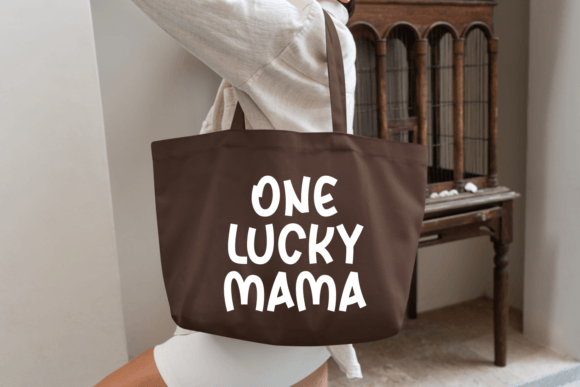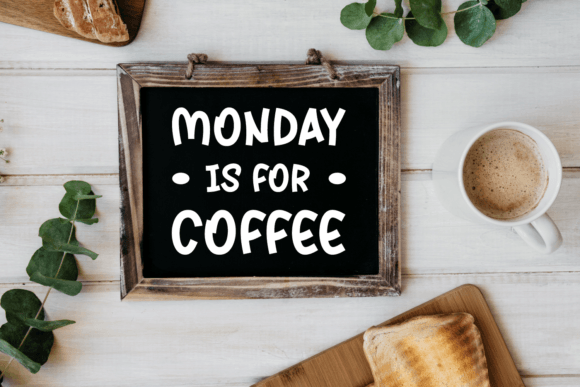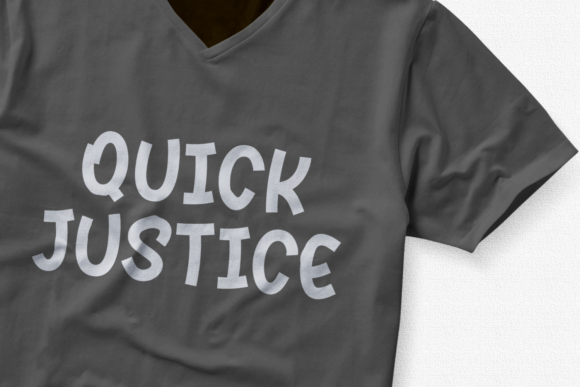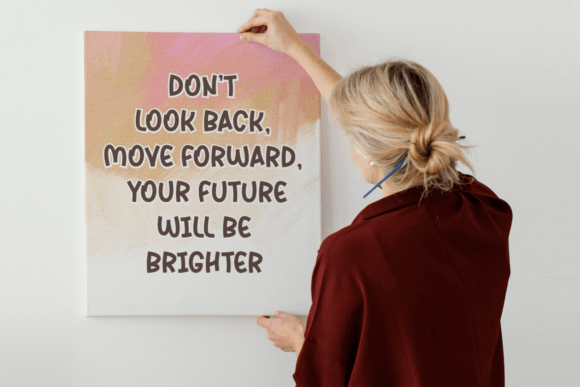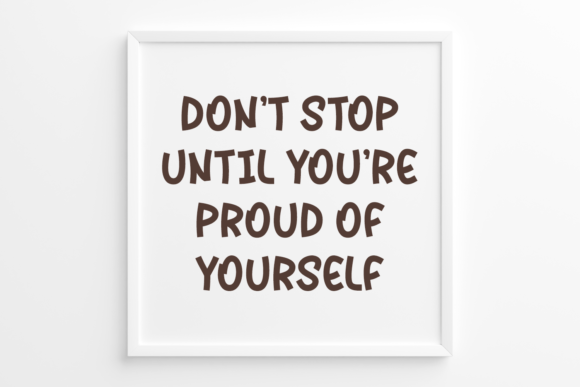
Introduction to Simple Brother Font
Have you ever stumbled upon a design that just makes you stop and stare? A burst of color, a clever composition, or a font that simply pops? That’s exactly what Simple Brother Font is all about – creating those ‘aha’ moments in your design projects.
As designers, we’re always on the lookout for high-quality design resources that can elevate our creative projects and give them that extra oomph. Simple Brother Font is one such treasure trove that’s guaranteed to add some excitement to your designs. With its transparent background and versatile design, this font is perfect for magazine layouts, posters, and more. And the best part? You can download it for free!
So, get ready to unleash the exuberant side of typography with Simple Brother Font and take your design projects to the next level.
Key Features of Simple Brother Font
- High-quality design resource perfect for creative projects
- Features a clean and minimalist design, ideal for modern designs and branding
Honest Review: Simple Brother Font
I recently had the opportunity to work with the Simple Brother Font in a creative project, and I must say it’s been a great experience. This font is a fantastic design resource for anyone looking to add a touch of elegance to their work.
What works well: ✨ The Simple Brother Font has a beautiful, high-quality design that’s perfect for both print and digital applications. It’s also available for free download, making it an excellent choice for designers on a budget. I particularly appreciate the transparent background, which makes it easy to layer with other design elements.
- High-quality design that’s perfect for print and digital applications
However, I do have a few limitations to note: ⚠️ The font may not be suitable for projects that require a bold, attention-grabbing font. Additionally, some users may experience issues with font rendering on certain devices.
Overall, I’m impressed with the Simple Brother Font and would definitely recommend it to designers looking for a high-quality, free design resource.
To get the most out of the Simple Brother Font, use it in combination with other design elements to create a visually appealing design. Experiment with different font sizes, colors, and alignments to find the perfect balance for your creative project.
The Simple Brother Font is ideal for use in logos, business cards, brochures, and social media graphics. Its high quality design and transparent background make it a versatile design resource for a wide range of creative projects.